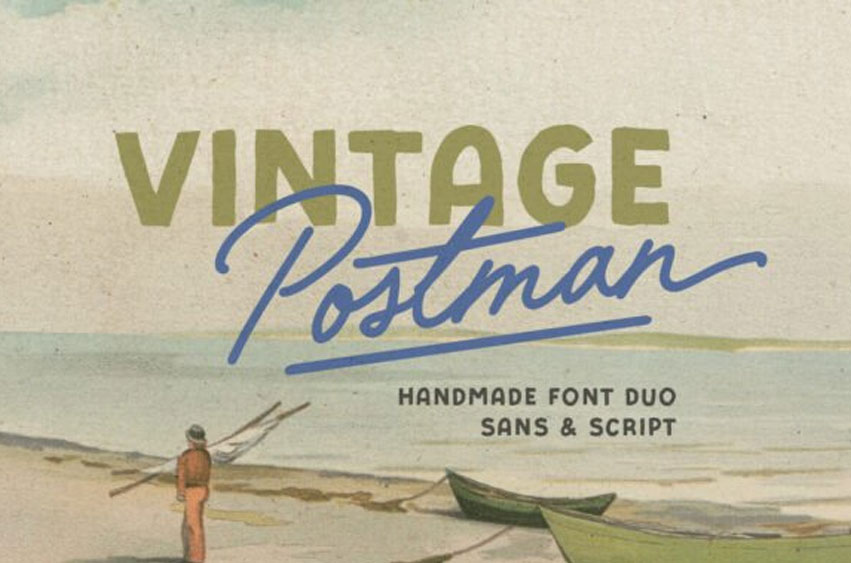
Vintage Postman Font
Vintage Postman Font is a handmade font duo consisting of a bold sans-serif font and a monoline script. This versatile font can be used for various purposes, especially for designs that require retro and vintage vibes, such as posters, logos, quotes, and branding.
It features alternates, ligatures, and lines in the script font, adding an appealing touch to your projects. Additionally, this font duo supports multiple languages!